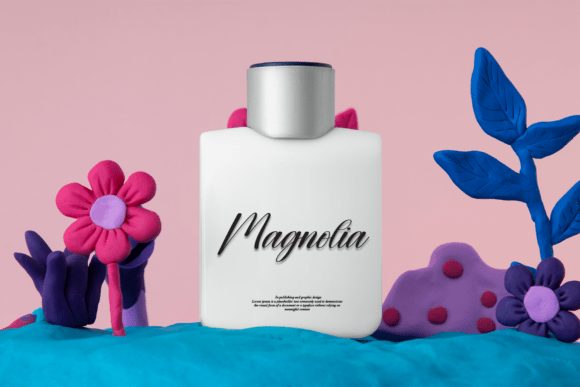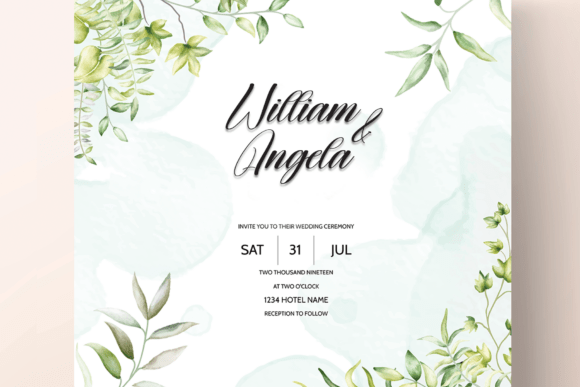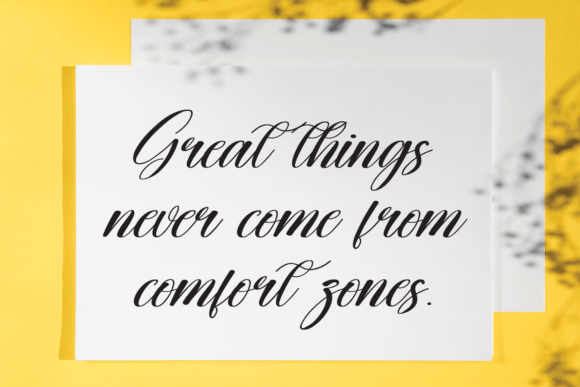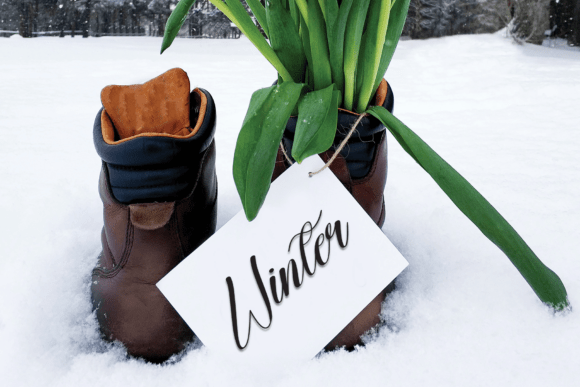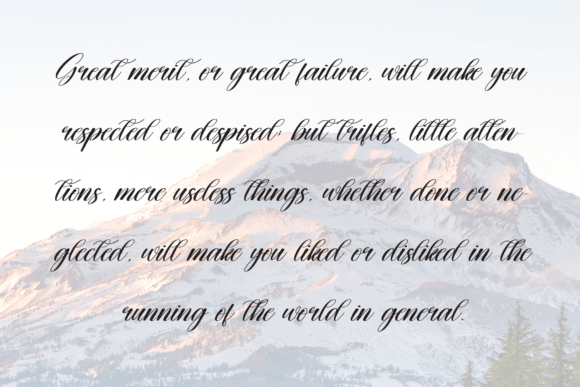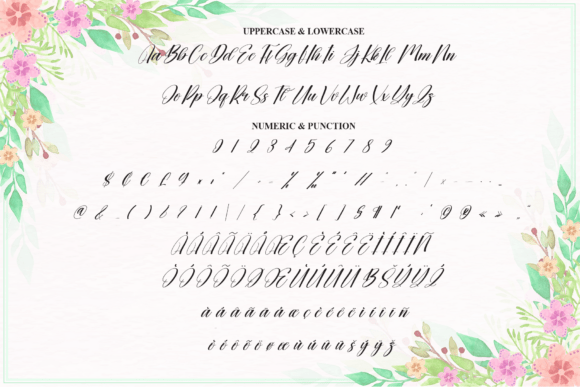
The Elegance of Decorative Font: Elevating Your Designs with Fluid Handwritten Typography
I still remember the design project that made me fall in love with Decorative Font. I was working on a wedding invitation for a close friend, and I wanted to create something that would truly reflect their elegant and sophisticated style. As I scrolled through my font library, I stumbled upon this beautiful, fluid handwritten typeface that seemed to embody the very essence of luxury and refinement. It was as if the words danced on the page, with sweeping flourishes and delicate swashes that added a touch of prestige to every letter. I knew right then and there that I had found the perfect font for the job.
- ✅ Elegant and fluid handwritten design that exudes sophistication
- ✅ Long, delicate swashes and flourishes that add movement and prestige to any text
- ✅ Perfect for wedding invitations, high-end branding, and feminine logo designs
- ✅ Natural rhythm of the strokes makes it feel like authentic calligraphy
While Decorative Font is an exceptional typeface, there are a few things to keep in mind. For instance, the font’s intricate design can make it challenging to read at smaller sizes. Additionally, some of the swashes and flourishes may not work well with certain letter combinations. However, with a little creativity and experimentation, these limitations can easily be overcome.
Another thing to consider is that, due to its elegant and cursive nature, Decorative Font might not be the best choice for body text or longer paragraphs. It’s ideal for headlines, titles, or short phrases where you want to make a statement.
The Designer Inspiration Behind Decorative Font
While the true origins of Decorative Font are unknown, it’s easy to imagine that it was inspired by the elegant calligraphy of 18th-century Europe. Perhaps a young, talented calligrapher named Sophie created the font as a way to showcase her skills and add a touch of sophistication to the written word. Whatever its true origins, Decorative Font is a testament to the power of beautiful typography to elevate and transform any design.